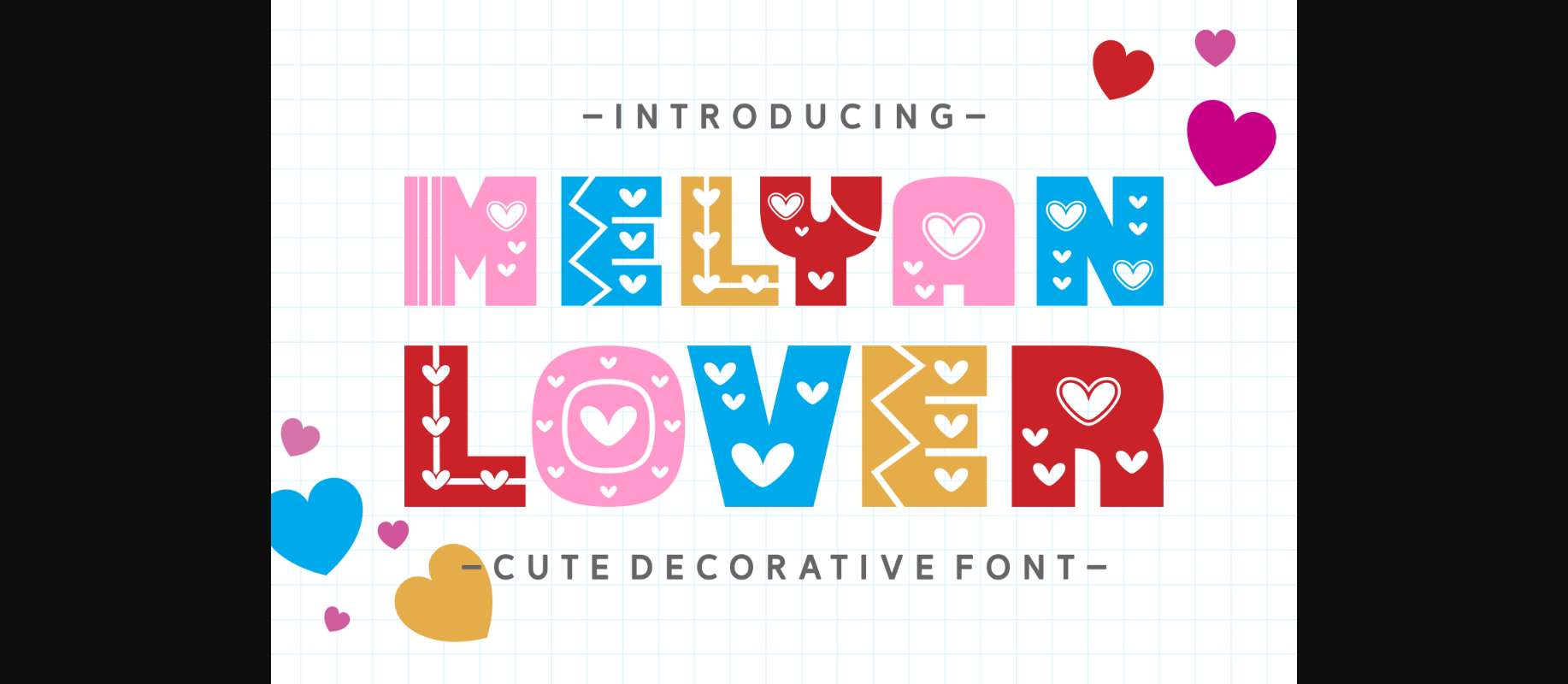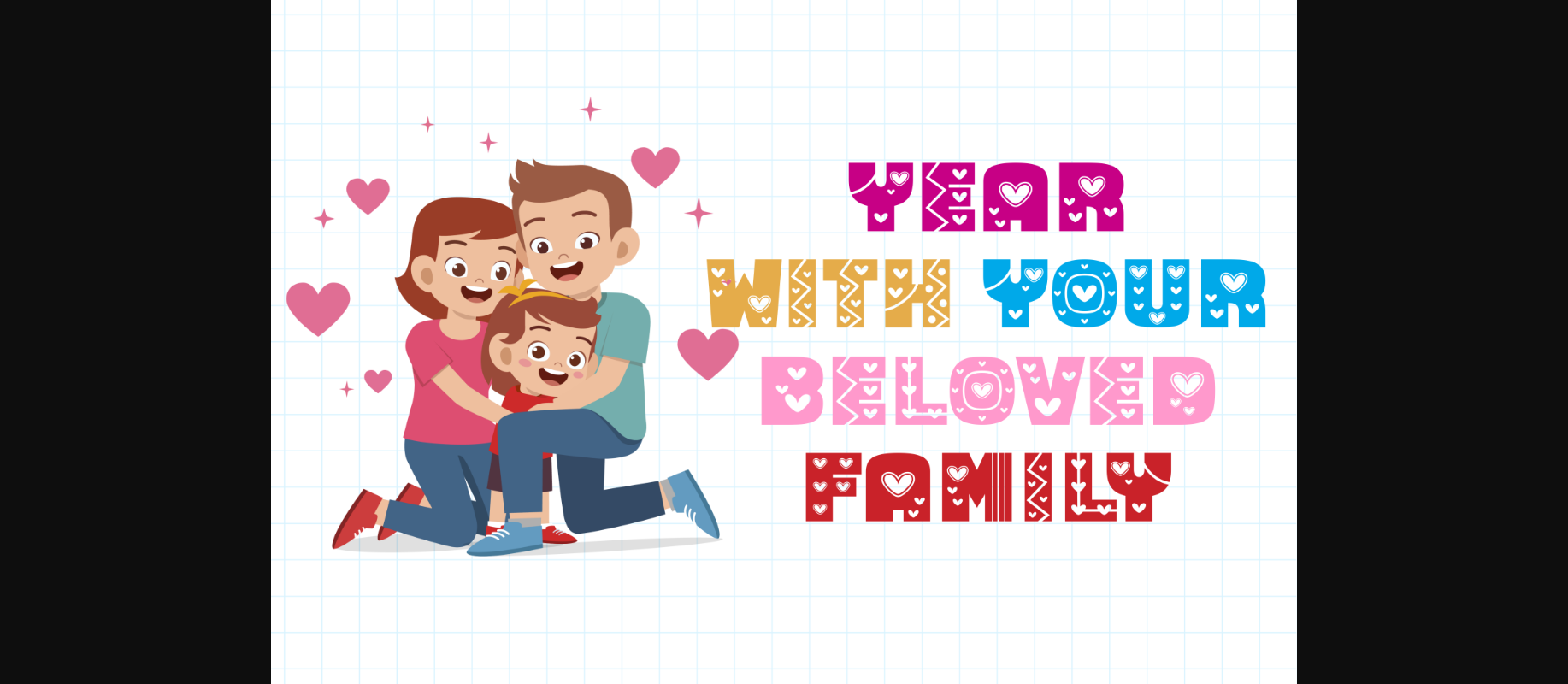
About Melyan Lover Font
Meet Melyan Lover, the sweet and charming decorative font that adds a touch of love to your text. This font is not just cute—it’s adorned with hearts nestled within each letter, bringing warmth and playfulness to your designs. Perfect for creating love notes, invitations, or any project where you want to infuse a dose of affectionate style. Melyan Lover is your go-to choice for spreading love through letters in a delightfully simple and adorable way.